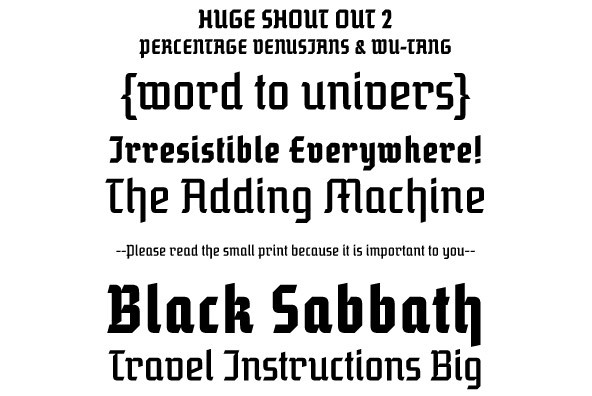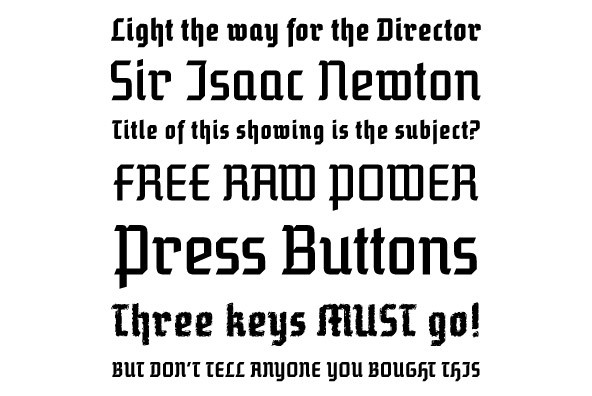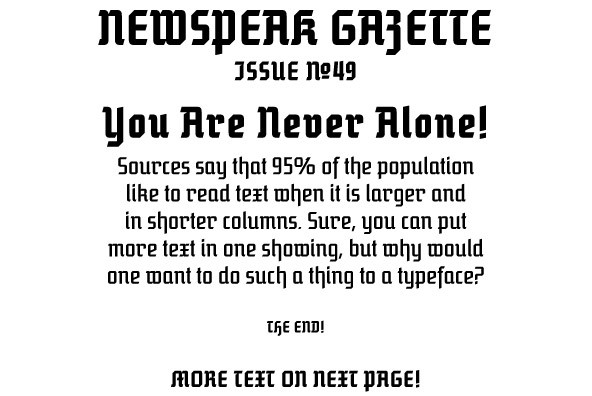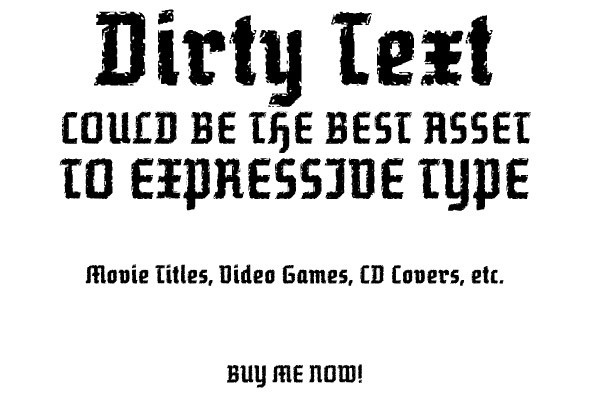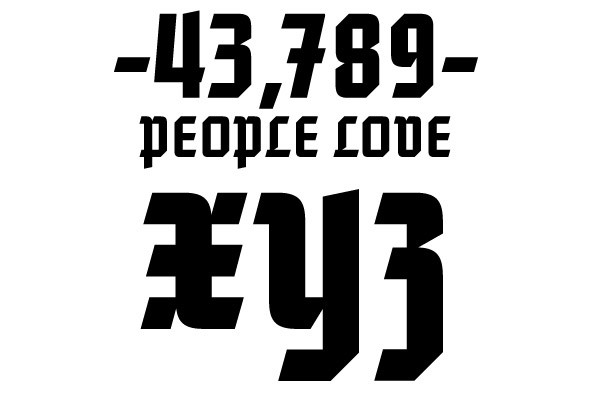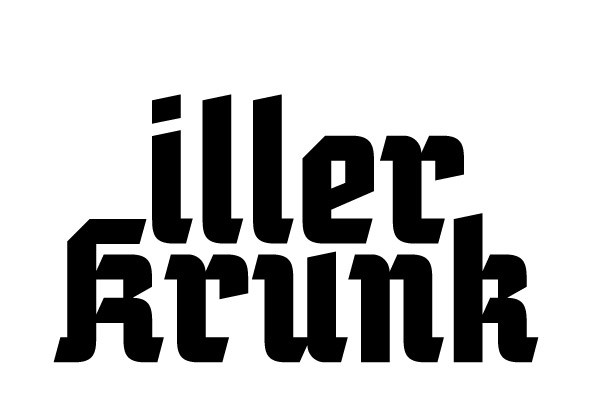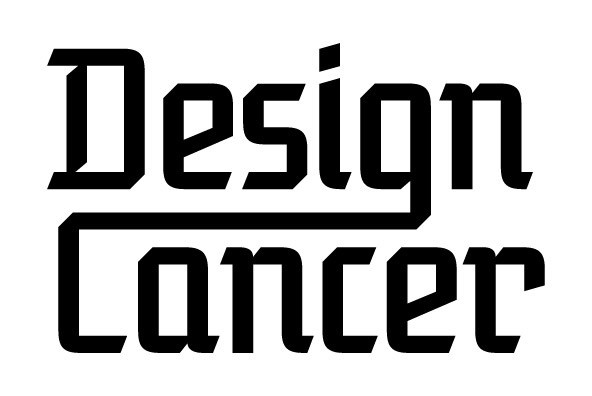
Blackhaus
Almost a half of a millennium after being mistaken for the original 4th century Gothic alphabet and falsely labeled 'barbaric' by the European Renaissance, the blackletter alphabet was still flourishing exclusively in early 20th century Germany, not only as an ode to Gutenberg and the country's rich printing history, but also as a continuous evolution, taking on new shapes and textures influenced by almost every other form of alphabet available. Blackletter would continue to go strong in Germany until just before the second World War, when it died a political death at the height of its hybridization. For almost 50 years after the war, blackletter was very rarely used in a prominent manner, but it continued to be seen sparely in a variety of settings, almost as a subliminal reminder of western civilization's first printed letters; on certificates and official documents of all kinds, religious publications, holiday cards and posters, to name a few. In the early 21st century, blackletter type has been appearing sporadically on visible media, but as of late 2005, it is not known how long the renewed interest will last, or even whether or not it will catch on at all.
The last few years before World War II were arguably the most fascinating and creative in modern blackletter design. During those years, and as demonstrated with the grid-based Leather font, the geometric sans serif was influencing the blackletter forms, taking them away from their previous Jugendstil (Art Nouveau) hybridizations. Blackhaus is a digitization and elaborate expansion of a typeface called Kursachsen Auszeichnung, designed in 1937 by Peterpaul Weiss for the Schriftguss foundry in Dresden. This is one of very few designs from that time attempting to infuse more Bauhaus than Jugendstil into the Blackletter forms. This is why we used a concatenation of the words blackletter and Bauhaus to name this face.
The result of injecting Bauhaus elements into blackletter turned out to be a typeface that is very legible and usable in modern settings, while at the same time harking back to the historical forms of early printing.
The original 1937 design was just one typeface of basic letters and numbers. After digitizing and expanding it, we developed a lighter version, then added a few alternates to both weights. The Rough style came as a mechanically-grunged afterthought, due to current user demand for such treatment.
Having the flexibility of 2 weights and many alternates of a blackletter typeface is not a very common find in digital fonts. More specifically, having the flexibility of 2 weights and alternates of a 20th century blackletter typeface is almost unheard of in digital fonts. So the Blackhaus family can be quite useful and versatile in an imaginative designer's hands.